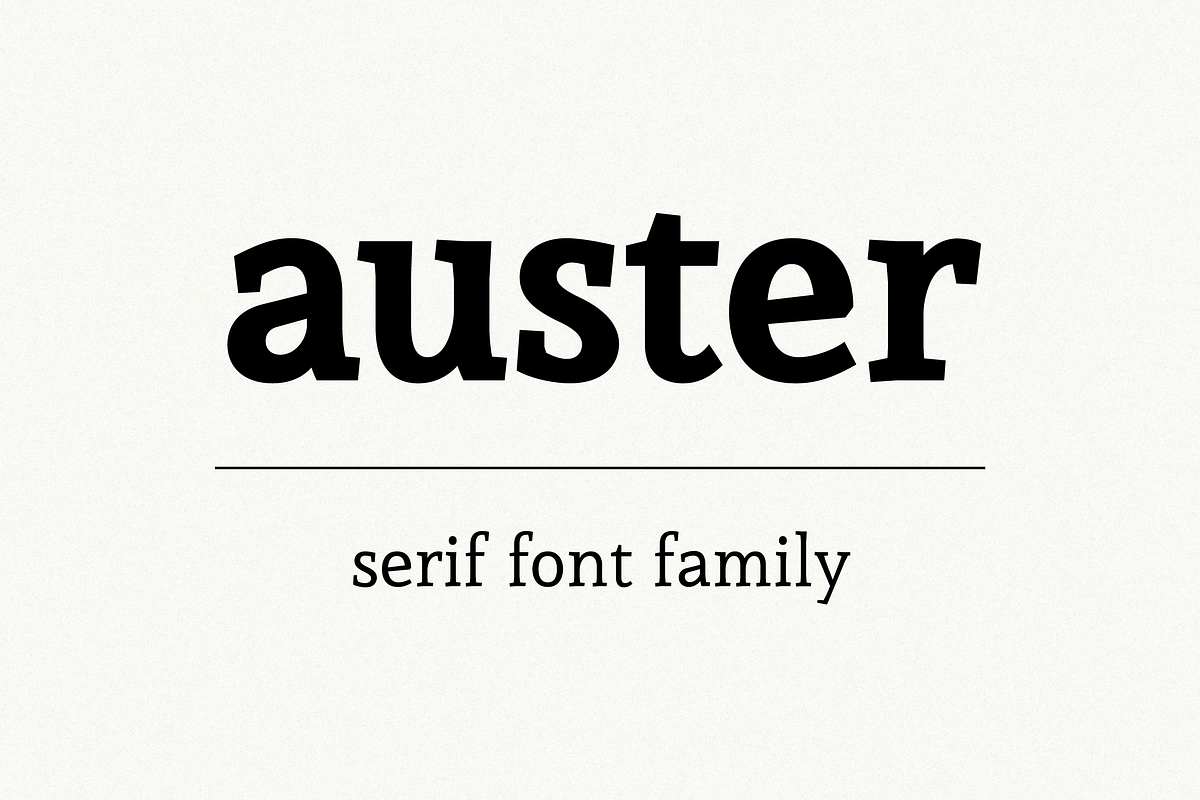
Please note that you must purchase this font family for commercial use. You can download Auster – Font Family for free, strictly for personal testing purposes only. Auster is a modern, elegant serif font family designed for versatility and readability. Featuring a clean design with subtle details, Auster Font Family Free Download is perfect for a wide range of projects, including branding, editorial designs, websites, logos, and more.
The font family includes a variety of weights, from light to bold, giving you flexibility to create strong typographic hierarchy in your designs. It includes uppercase and lowercase letters, numerals, punctuation, and multilingual support, making it adaptable for global use.
Whether you're designing a corporate identity, a modern magazine layout, or stylish marketing materials, Auster adds sophistication and clarity to your typography.